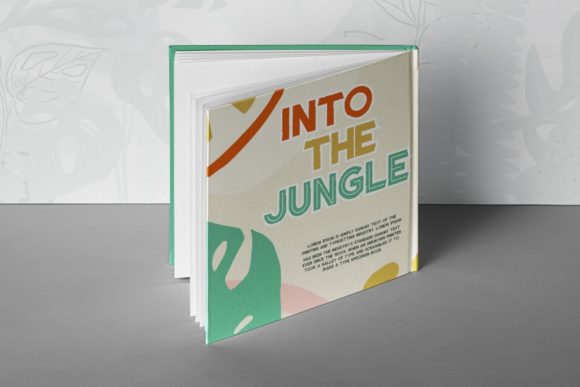
Jungle Hero is a quirky display font with a fun, cartoon, energic, and playful style. This fancy font has unique vibes that will be amazing for many projects : children products, toys, movies, zoo, games, books, greeting cards, toys, posters, baby clothing, picture books, or anything that requires a fun and happy look.